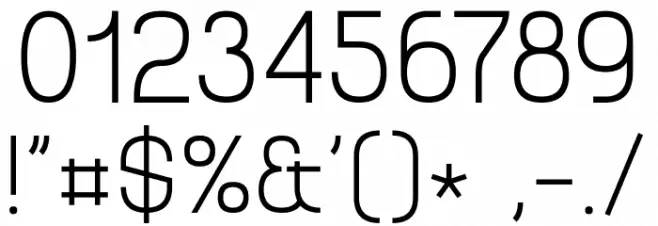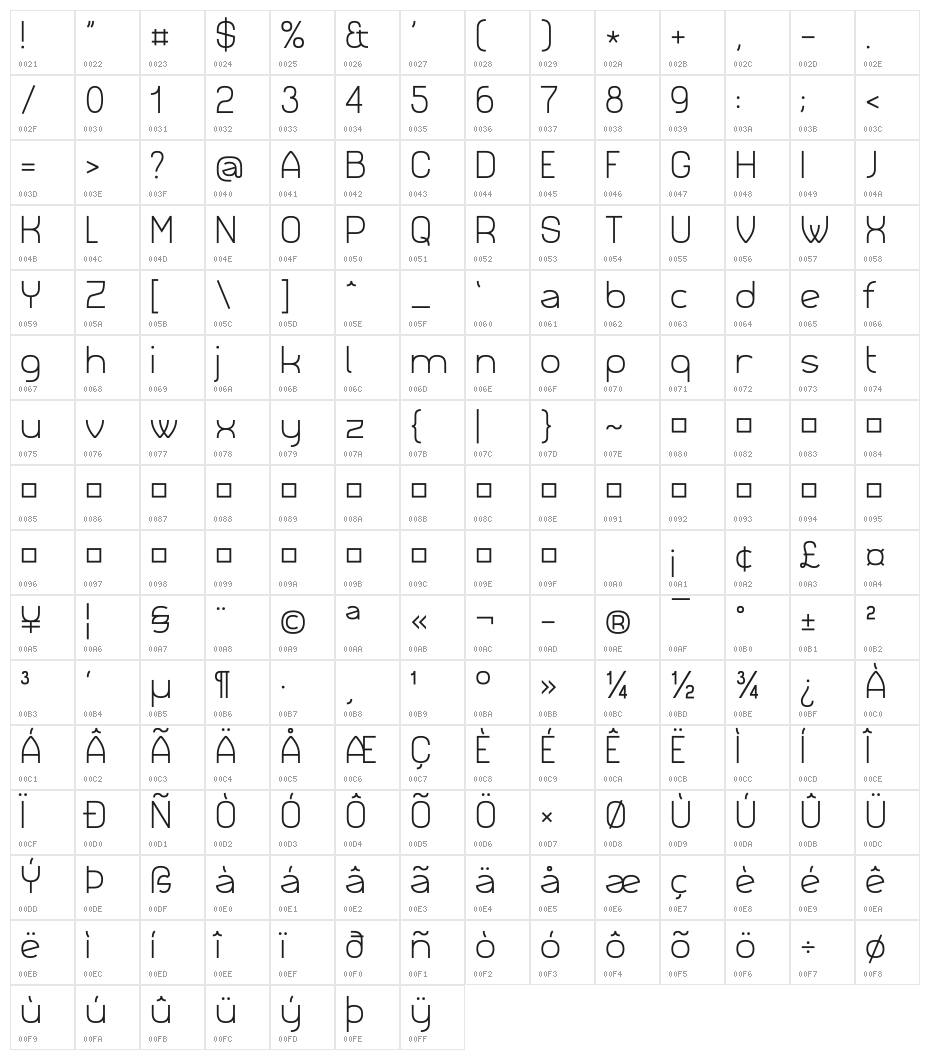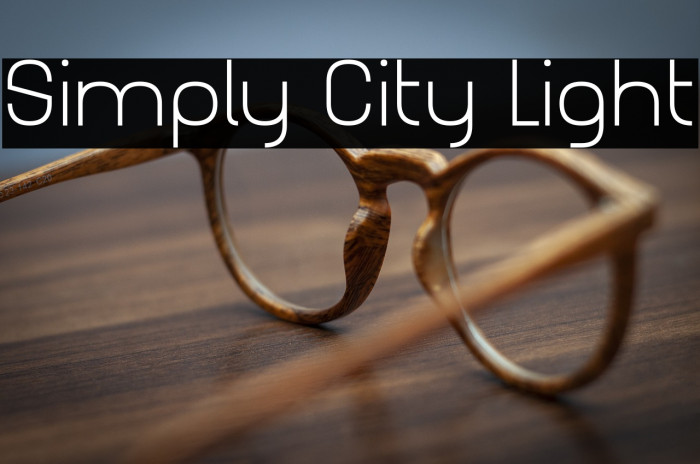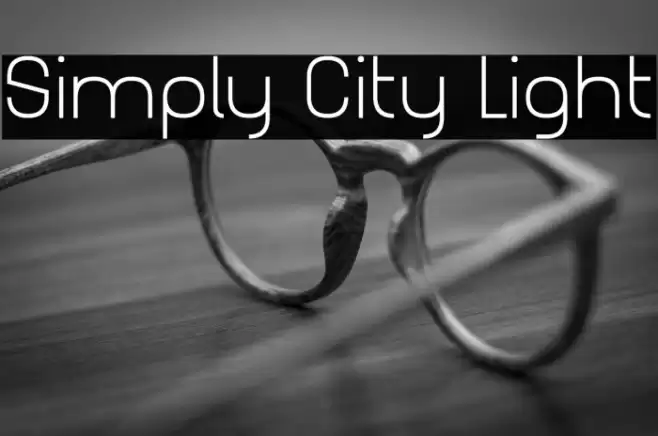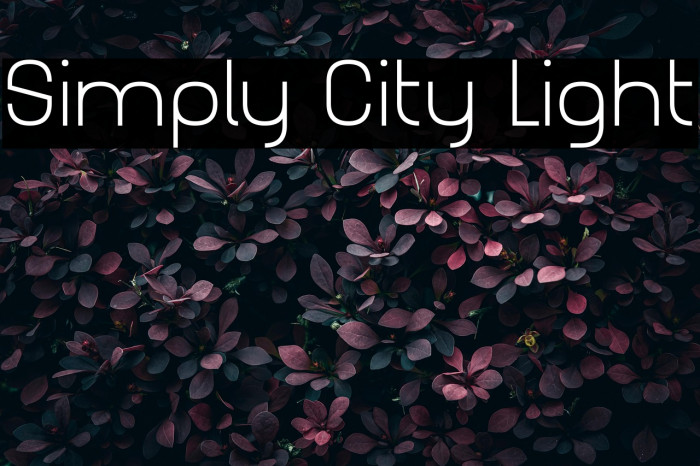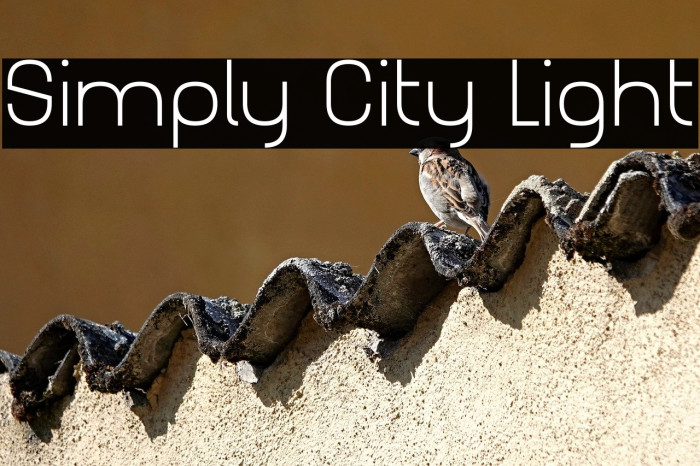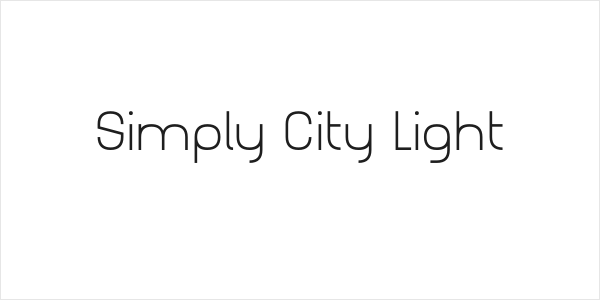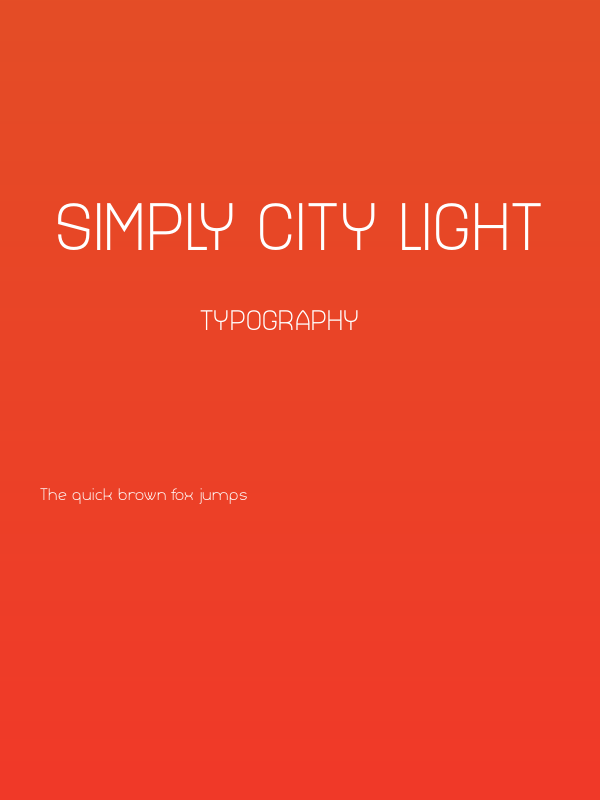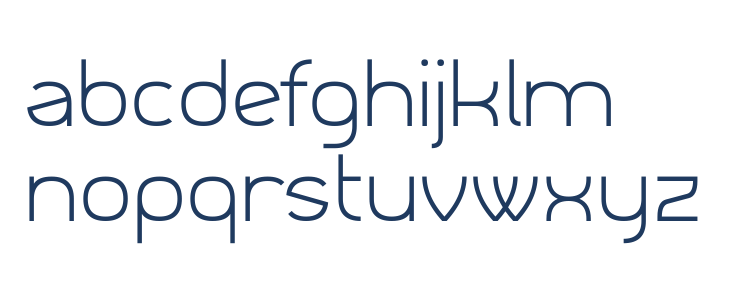
Simply City Light Font
Simply City Light Description
This font features a clean and minimalist design, characterized by its geometric shapes and uniform line thickness. The letters are constructed with a modern aesthetic, emphasizing simplicity and clarity. The uppercase and lowercase letters maintain a consistent style, with rounded edges and a balanced structure. The numerals and special characters follow the same design principles, ensuring a cohesive look across all elements. The font's overall appearance is sleek and contemporary, making it suitable for a variety of design applications.
| Proposed Projects | Ideal for branding, web design, and editorial projects that require a modern and clean aesthetic. |